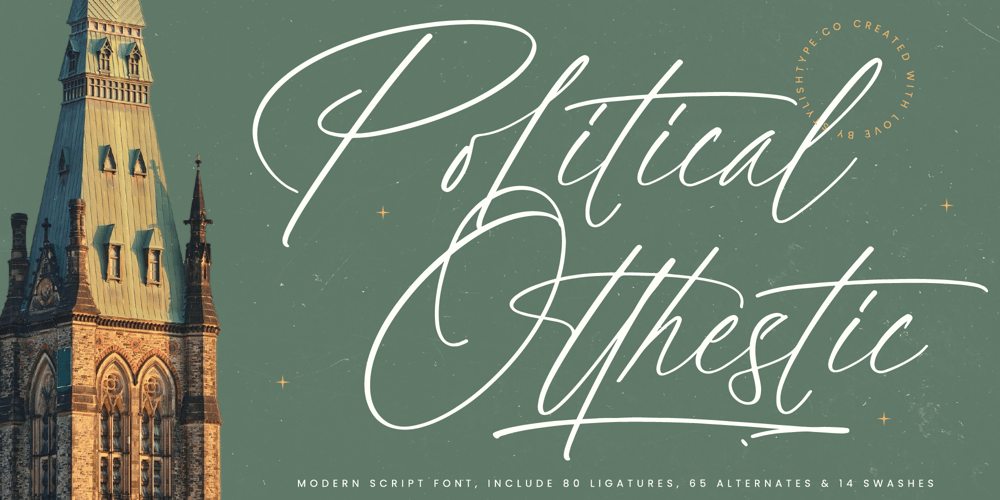
Political Otthestic Font Family was designed by Heru Utama Putra and published by Stylishtype Studio. Political Otthestic contains 2 styles and family package options. Political Otthestic – Modern Script Font , from Stylishtype , Suitable for any projects such as: logos, branding projects, homeware designs, product packaging, mugs, quotes, posters, shopping bags, t-shirts, book covers, name card, invitation cards, greeting cards, label, photography, watermark, special events, and all your other luxury and beautiful projects that need a Luxury Script taste.